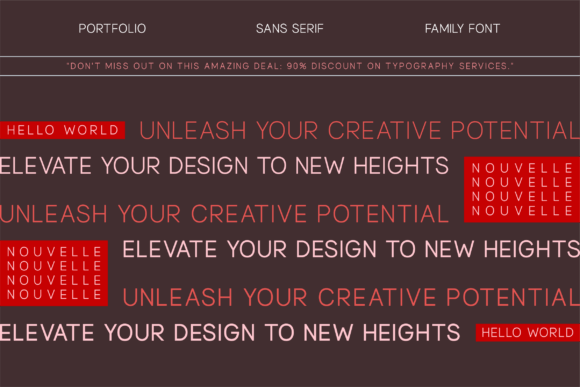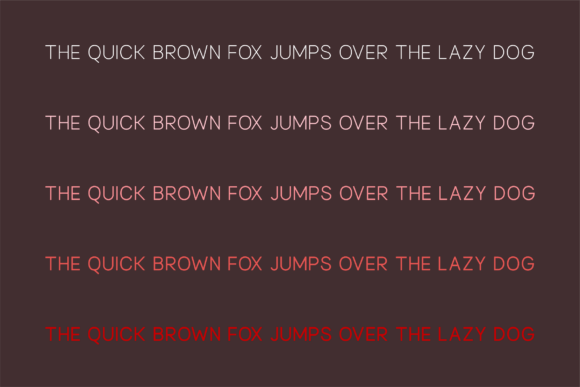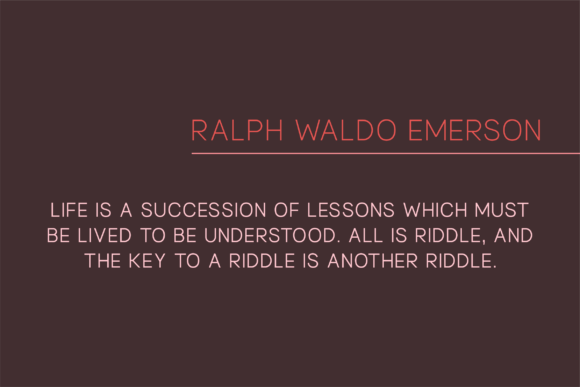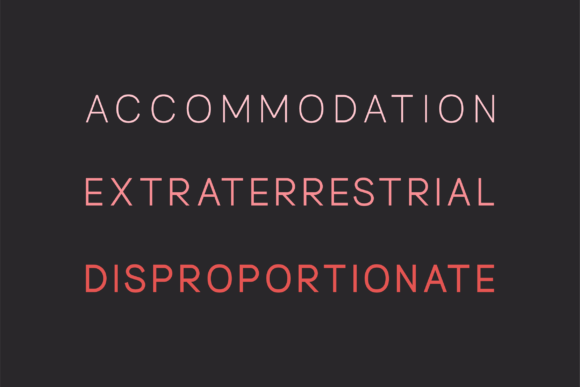
Introduction to Nouvelle Font
Remember that moment when you stared at a blank canvas, eager to bring your creative project to life? The anticipation, the excitement, and the pressure to create something truly remarkable. For designers, this feeling is all too familiar. But what if you had the perfect design resource to elevate your work and make it stand out from the crowd? Enter Nouvelle Font, a masterfully crafted sans-serif font family that’s about to revolutionize the way you approach modern design.
With its sleek and sophisticated aesthetic, Nouvelle Font offers unparalleled versatility, making it an invaluable addition to any designer’s toolkit. Whether you’re working on a magazine spread, a logo, or a film poster, this high-quality font family has got you covered. And the best part? It’s available for free download, so you can unlock its full potential without breaking the bank.
But what sets Nouvelle Font apart from other design resources? Its ability to strike the perfect balance between elegance and minimalism, creating a timeless charm that’s simply irresistible. And with its transparent background, you can rest assured that your designs will shine with clarity and precision.
Key Features of Nouvelle Font
- High-quality design resource with a modern and elegant style, perfect for creative projects.
- Transparent background, allowing for seamless integration with any design.
- Includes 5 different font weights, from Light to Bold, to cater to diverse design needs.
Honest Review: Nouvelle Font
I recently stumbled upon Nouvelle Font, a beautiful and elegant font that I’m excited to share with fellow designers. This free download is perfect for any creative project that requires a touch of sophistication and refinement.
What works well about Nouvelle Font is its high quality and versatility. It’s available in a range of weights and styles, making it easy to use in various design contexts. The font also features a transparent background, which allows for seamless integration with any design element.
The font’s clean and minimalist design makes it perfect for:
- Corporate branding
- Editorial design
- Wedding invitations
- Any project where elegance is key
However, I did encounter a few limitations with Nouvelle Font. The font’s range of weights and styles, while extensive, can make it overwhelming to choose the perfect combination for a particular project. Additionally, some users may find the font’s lack of bold or italic variations to be a drawback.
Overall, I’m impressed with Nouvelle Font and would definitely recommend it as a design resource. Its high quality and versatility make it a valuable addition to any designer’s toolkit.
Nouvelle Font
Nouvelle Font is a high-quality, free download design resource perfect for any creative project. With its transparent background, it’s easy to integrate into your designs.
Nouvelle Font is perfect for creating invitations, business cards, and other design materials where a high-quality, elegant font is desired.